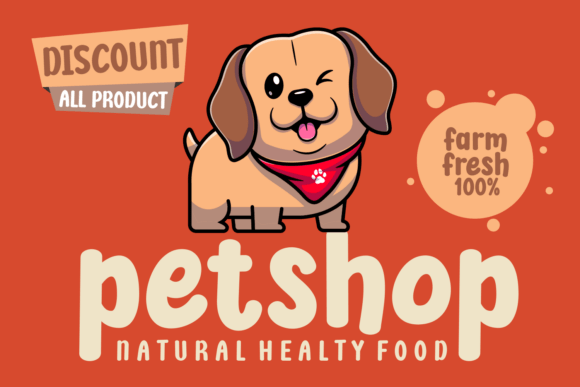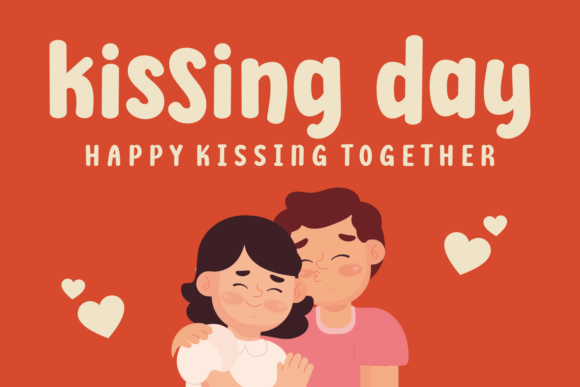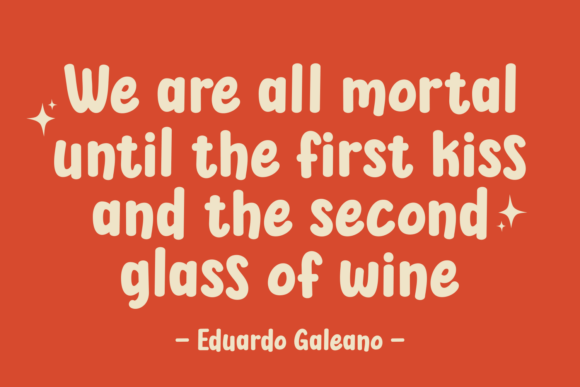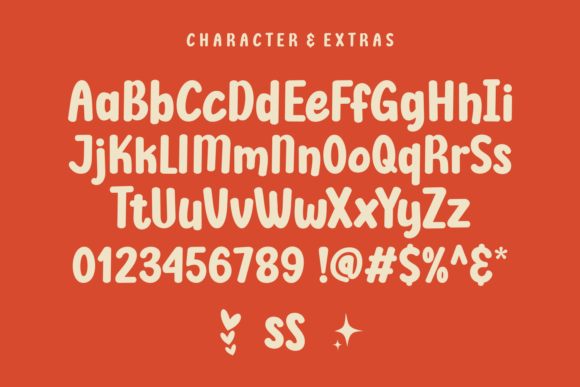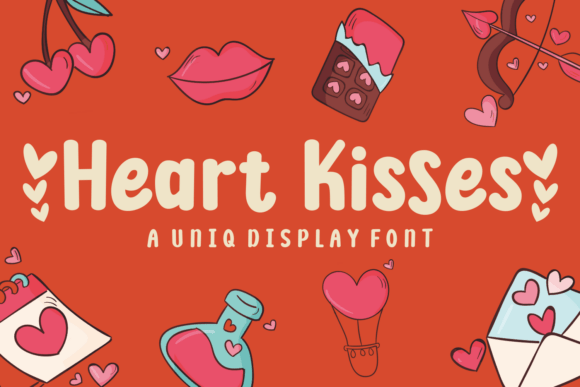
Heart Kisses Font: Spread Love and Joy with Every Letter
Are you looking for a font that exudes warmth, joy, and affection? Look no further than Heart Kisses, a delightful display font that is perfect for adding a romantic touch to your designs. With its soft, rounded letterforms and playful heart embellishments, Heart Kisses is sure to make your designs stand out and capture the hearts of your audience.
Sweetness in Every Letter
Heart Kisses is a love-filled font that is designed to bring a smile to your face. Its soft, rounded letterforms are gentle and soothing, while the playful heart embellishments add a touch of whimsy and fun. Whether you’re creating designs for Valentine’s Day, wedding invitations, or simply want to add a romantic touch to your projects, Heart Kisses is the perfect choice.
Perfect for Valentine’s Day Designs
Valentine’s Day is just around the corner, and Heart Kisses is the perfect font to use for your designs. From greeting cards to social media posts, this font is sure to add a touch of love and affection to your creations. Imagine creating a Valentine’s Day card with a sweet message, using Heart Kisses to add a playful and romantic touch. The result is a design that is sure to melt the heart of your loved one.
Ideal for Wedding Invitations and Stationery
Wedding invitations and stationery are a great way to use Heart Kisses. The font’s romantic and affectionate vibe makes it perfect for wedding designs, from save-the-date cards to wedding invitations and thank-you notes. With Heart Kisses, you can add a touch of elegance and sophistication to your designs, while also conveying the love and joy of the special day.
Fun and Playful for Kids’ Projects
Heart Kisses is not just limited to romantic designs. The font’s playful and whimsical nature makes it perfect for kids’ projects, such as coloring pages, activity sheets, and educational materials. Imagine creating a fun and interactive kids’ activity sheet with Heart Kisses, complete with heart-shaped embellishments and playful text. The result is a design that is sure to delight kids and parents alike.
Key Features of Heart Kisses Font
- Soft, rounded letterforms for a gentle and soothing look
- Playful heart embellishments for a touch of whimsy and fun
- Perfect for Valentine’s Day designs, wedding invitations, and kids’ projects
- Romantic and affectionate vibe for adding a touch of love to your designs
- Easy to use and pair with other fonts for a unique look
Tips for Using Heart Kisses Font
Here are some tips for getting the most out of Heart Kisses:
- Use Heart Kisses as a display font to add a touch of drama and elegance to your designs
- Pair Heart Kisses with other fonts to create a unique and interesting look
- Use Heart Kisses for headings, titles, and other design elements that need a touch of personality
Heart Kisses is a delightful and love-filled font that is perfect for adding a romantic touch to your designs. With its soft, rounded letterforms and playful heart embellishments, it’s sure to make your designs stand out and capture the hearts of your audience. Whether you’re creating designs for Valentine’s Day, wedding invitations, or kids’ projects, Heart Kisses is the perfect choice. So why not give it a try and spread some love and joy with every letter?